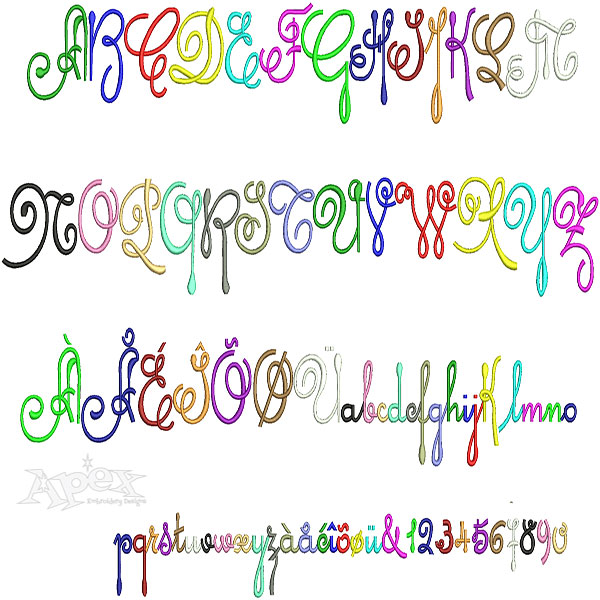
Pendulum Curly Embroidery Font
Pendulum Curly Machine Embroidery Fonts. An elegant font with fun whimsical curls. All size's are in satin stitch. Size: 2" , 2.5" and 3" sets.